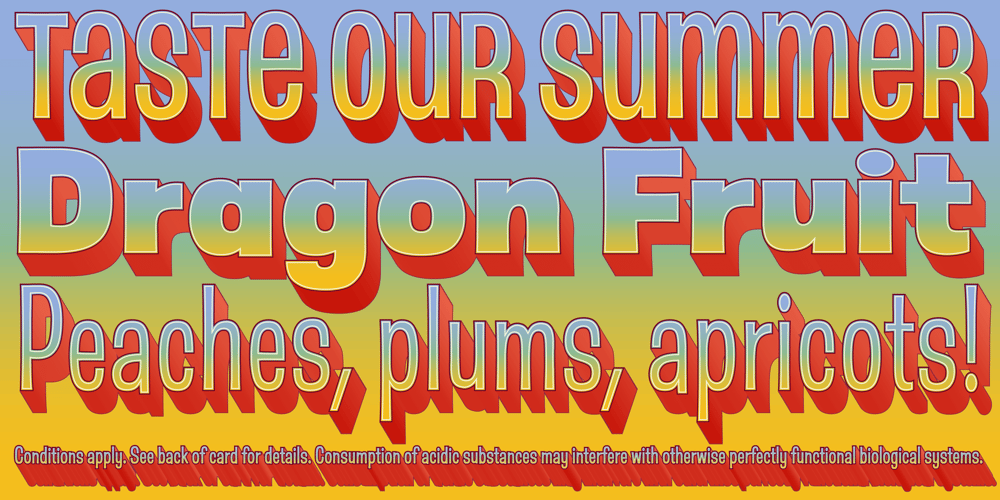
Bananas Font Family was designed by Patrick Griffin and published by Canada Type. Bananas contains 18 styles and family package options. In the history of 20th century graphic arts, the evolution of the informal sans serif has been a uniquely American phenomenon. The ongoing saga of this (still as popular as ever) sub-genre dates back to the maturity of the Industrial Age and early Hollywood film titling, runs through the prosperous times of interwar print publications, sees mass flourishing during the various media propagations of the film type era, and solidifies itself as arguably the most common design element in the latter years of the century. Fun, bouncy, playful, and highly exciting, the casual sans serif is now all over game packaging, film and animation titles, book covers, food boxes, concert posters, and pretty much everywhere design aims to induce excitement about a product or an event. The casual sans is the natural high pill of typesetting.We figured it was high time for the casual sans to adapt to 21st century technology, gain more versatility, and become as much fun to use as the emotions it triggers. So we’re quite excited to issue Bananas, a fun sans serif family in 6 weights and 3 widths that can be used anywhere your designer’s imagination can take you.Rather than being based on a single design, Bananas was sourced from multiple American film era faces, all from 1950s and 1960s, when the casual sans genre was at its popular peak. Headliners’ Catalina and its very similar cousin, Letter Graphics’ Carmel, served as initial study points. Then a few Dave West designs informed the design development and weighting process, before narrow and wide takes were sketched out and included in the family. The entire development process happened in a highly precise interpolative environment. All Bananas fonts come with a full glyph complement supporting the majority of Latin languages, as well as five sets of figures, automatic fractions, quite a few ligatures, biform/unicase shapes and other stylistic alternates.